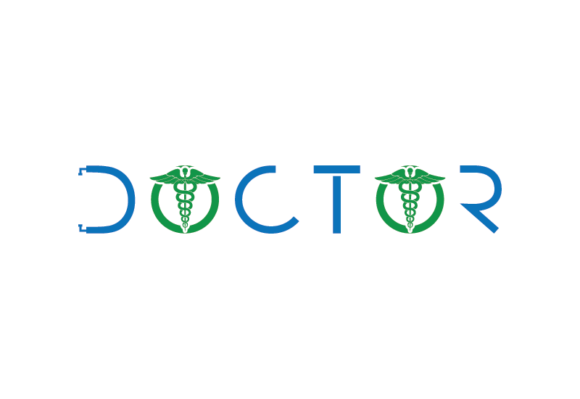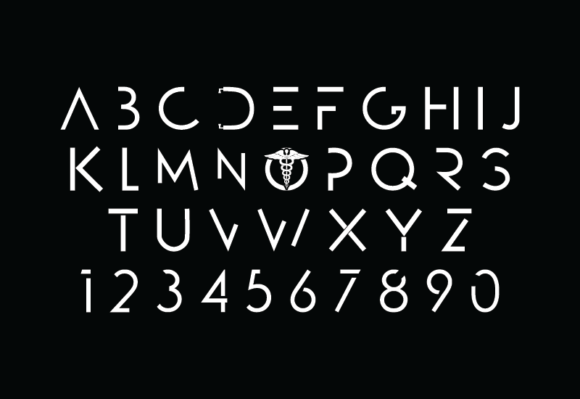
The Doctor Font: Elevate Your Designs with a Cool and Modern Sans-Serif
The Doctor font is a cool and modern sans-serif font that has been gaining popularity among designers and crafters. Its clean and sleek design makes it an excellent choice for a wide range of creative projects, from digital designs to print materials. In this article, we’ll explore the features and benefits of The Doctor font, and how you can confidently add it to your projects to make them stand out.
What is The Doctor Font?
The Doctor font is a sans-serif font, which means it doesn’t have the small lines or flourishes at the ends of the letters, giving it a clean and minimalist look. It’s a modern font that’s perfect for designs that require a fresh and contemporary feel. The font is highly legible, making it suitable for body text, headings, and titles.
Key Features of The Doctor Font
- Clean and Minimalist Design: The Doctor font boasts a clean and minimalist design, making it perfect for designs that require a modern and sleek look.
- High Legibility: The font is highly legible, even at small sizes, making it suitable for body text and headings.
- Versatility: The Doctor font can be used for a wide range of creative projects, from digital designs to print materials.
- Easy to Read: The font’s clean design and clear letterforms make it easy to read, even for extended periods.
Benefits of Using The Doctor Font
So, why should you use The Doctor font in your creative projects? Here are some benefits:
- Stand Out: The Doctor font’s modern and sleek design will help your projects stand out from the crowd.
- Professional Look: The font’s clean and minimalist design gives your projects a professional look that’s perfect for businesses and brands.
- Flexibility: The Doctor font can be used for a wide range of creative projects, from digital designs to print materials.
- Easy to Pair: The font’s simple design makes it easy to pair with other fonts, allowing you to create unique and harmonious typography combinations.
How to Use The Doctor Font in Your Creative Projects
Using The Doctor font in your creative projects is easy. Here are some tips:
- Digital Designs: Use The Doctor font in your digital designs, such as website headers, social media graphics, and email newsletters.
- Print Materials: Use the font in your print materials, such as brochures, flyers, and business cards.
- Headings and Titles: Use The Doctor font for headings and titles to add a modern and sleek touch to your designs.
- Pair with Other Fonts: Pair The Doctor font with other fonts to create unique and harmonious typography combinations.
The Doctor font is a cool and modern sans-serif font that’s perfect for designers and crafters looking to elevate their creative projects. Its clean and sleek design, high legibility, and versatility make it an excellent choice for a wide range of designs. By adding The Doctor font to your projects, you’ll be able to create modern, professional, and eye-catching designs that stand out from the crowd.
In conclusion, The Doctor font is a powerful design tool that can help you create stunning and effective designs. Its modern and sleek design, high legibility, and versatility make it an excellent choice for designers and crafters. So, add it confidently to your creative projects and notice how it makes them stand out.